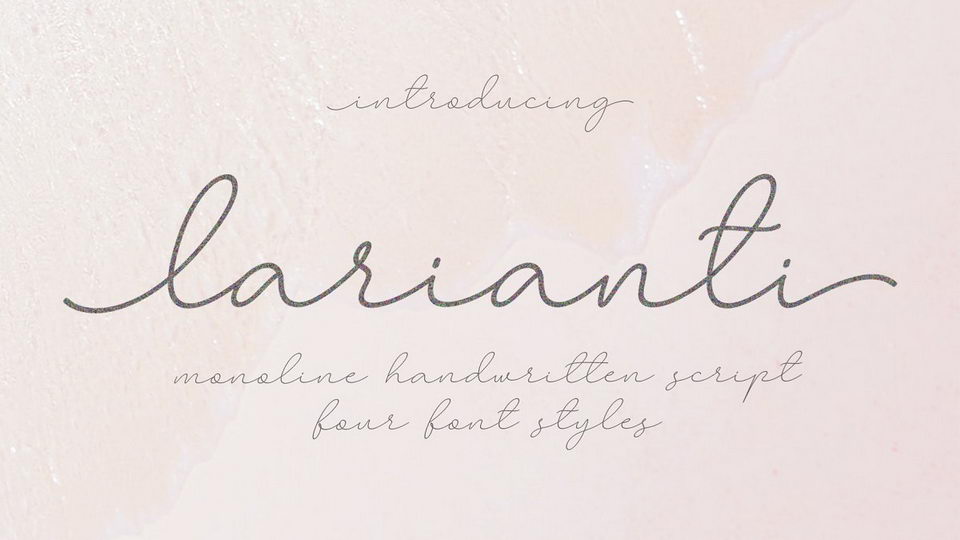
Download Larianti font, a monoline handwritten script that looks elegant, natural, stylish and perfect for any awesome projects that need handmade taste.